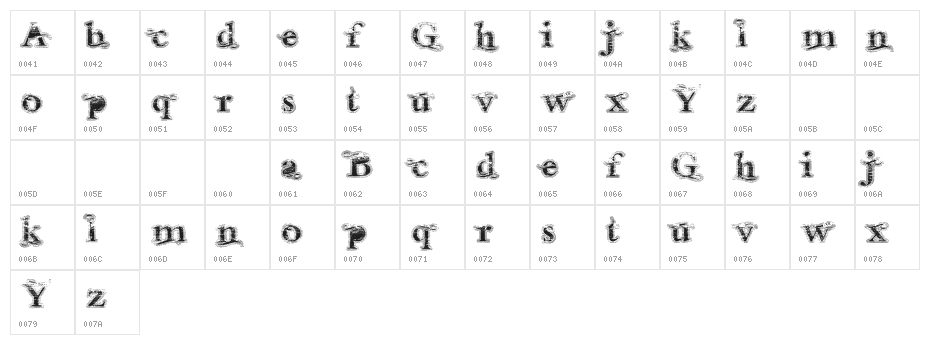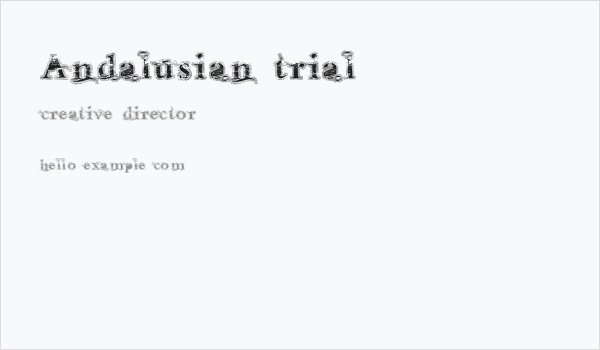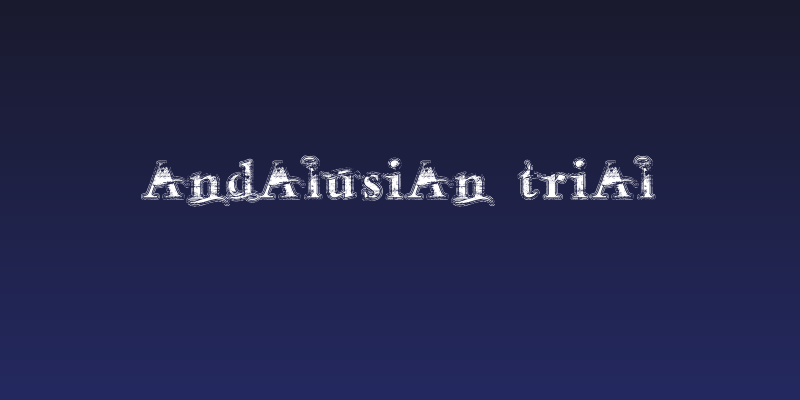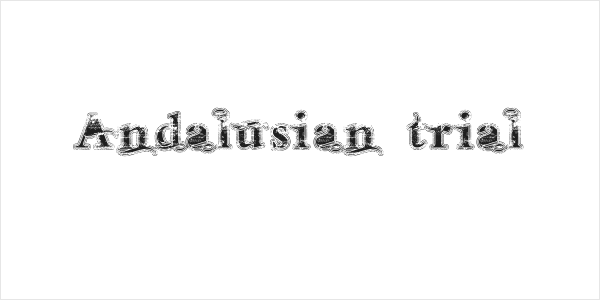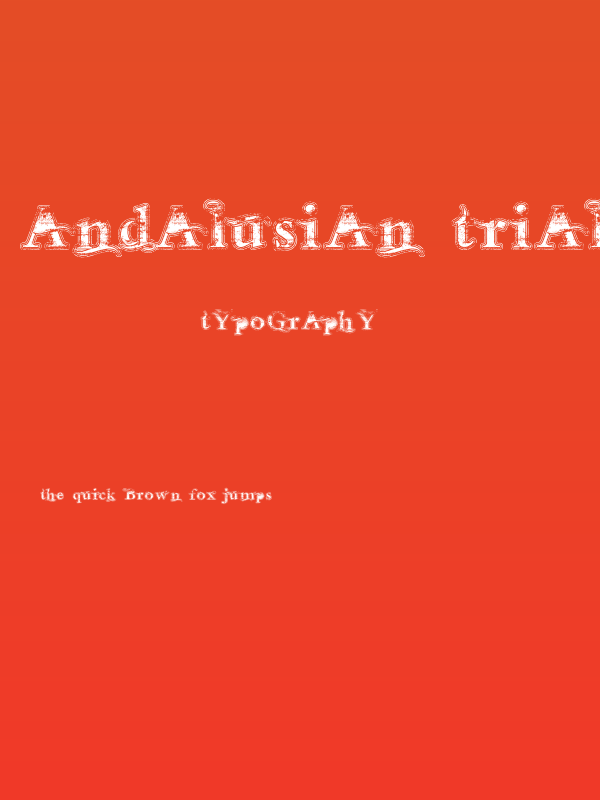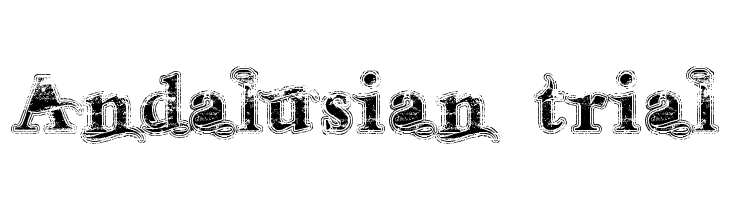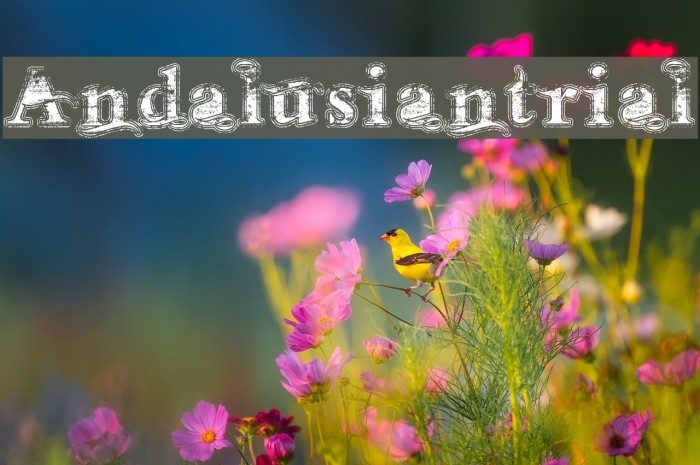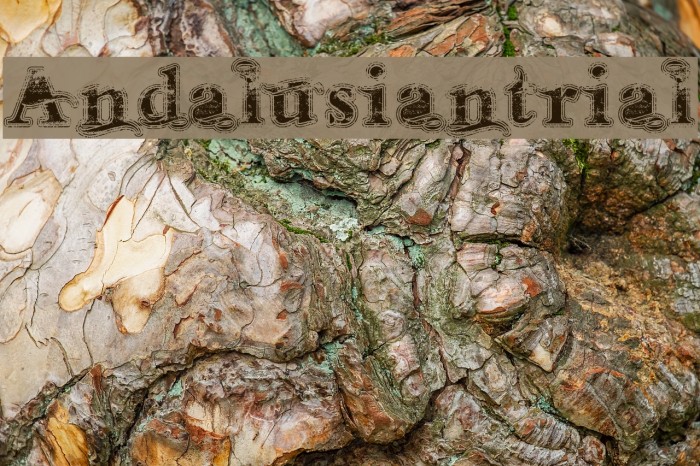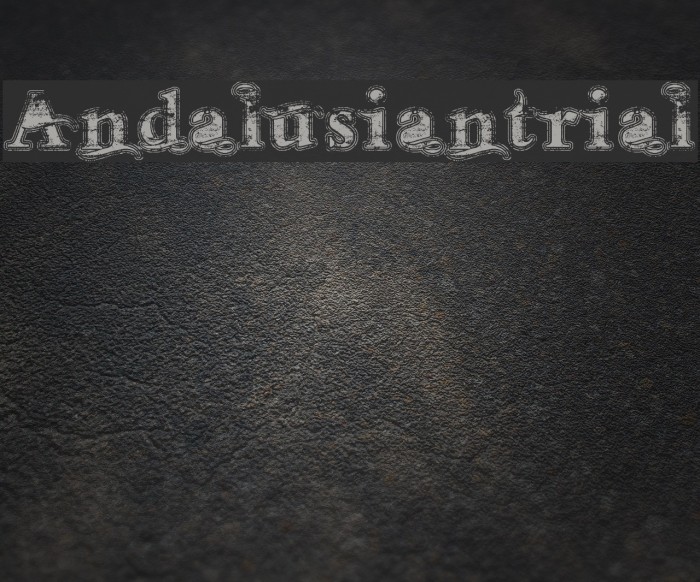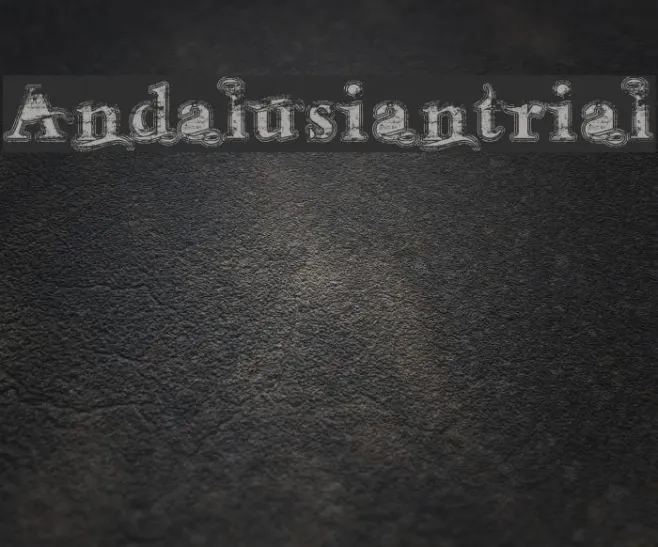
Andalusian Trial Font
Andalusian Trial Description
This font features a bold and decorative style with intricate detailing and a textured appearance. The characters have a vintage flair, reminiscent of old-world charm, with ornate embellishments that give it a unique and artistic look. The uppercase and lowercase letters maintain a consistent design, with the uppercase being slightly more pronounced. The numbers and special characters follow the same decorative theme, ensuring a cohesive appearance across all glyphs. The font's elaborate design makes it suitable for projects that require a touch of elegance and historical aesthetics.
| Overall Style | Vintage |
| Proposed Projects | Ideal for vintage-themed posters, invitations, branding for luxury products, and artistic projects requiring a historical touch. |